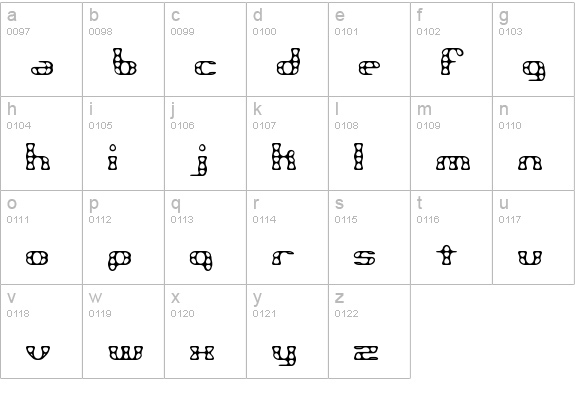
Brass Knuckle BRK font is a bold and eye-catching typeface that exudes raw power and edginess. With its strong, angular letterforms and distinctive brass knuckle-inspired design, this font is perfect for making a bold statement in your design projects. Whether you're creating posters, logos, or branding materials, Brass Knuckle BRK font will add a touch of toughness and attitude to your work. The best part? Brass Knuckle BRK font is available for free download at FontsMarket.com. You can easily add this unique and impactful font to your collection without breaking the bank. Don't miss out on the opportunity to enhance your designs with the striking and versatile Brass Knuckle BRK font today!